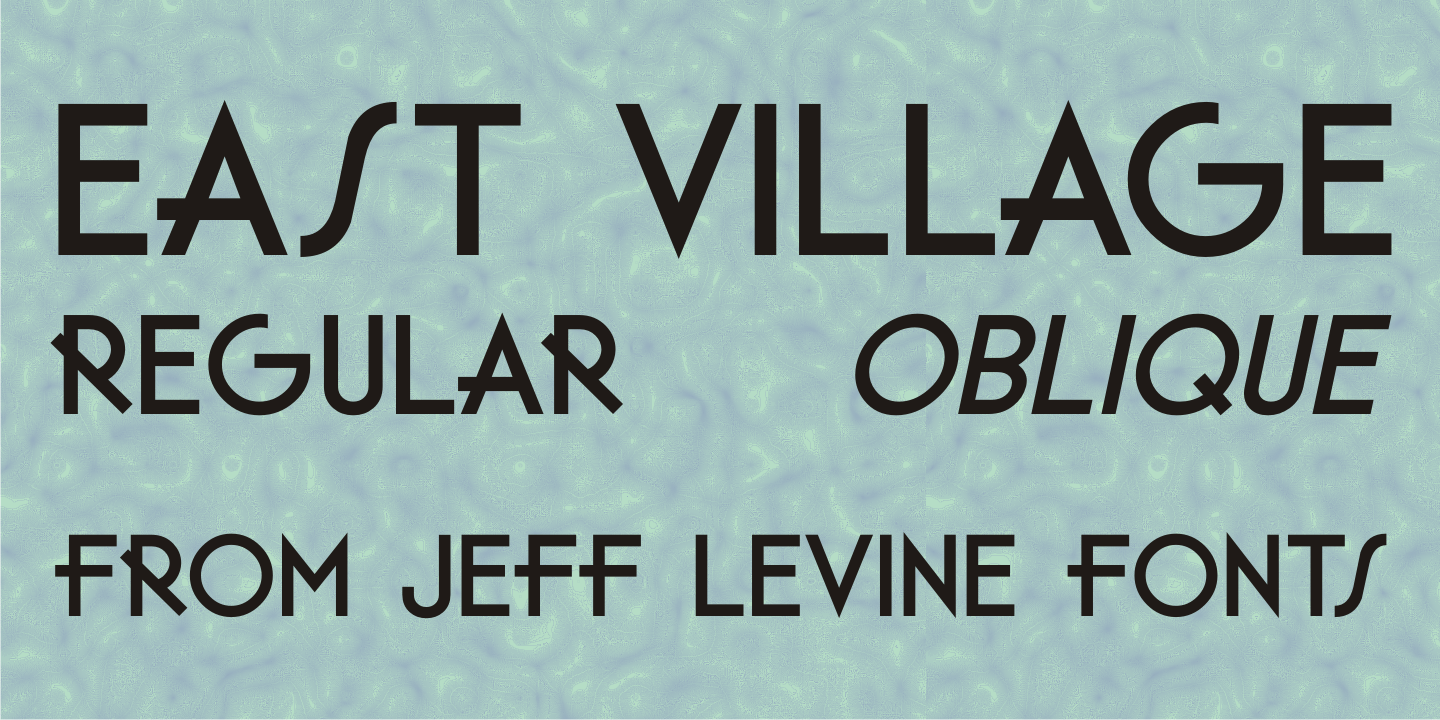
East Village
The Federal Art Project division of the WPA (Works Progress Administration) employed numerous artists, musicians, actors and other creative sorts in a effort to help many survive the Great Depression of the 1930s.
One of the posters created by this project was for a 'Card Party and Barter Benefit” with proceeds going toward the Nassau Art Teachers Benefit Fund - taking place at the Coca-Cola plant in Rockville Centre, New York.
East Village JNL was derived from this poster, and is available in both regular and oblique versions.
East Village includes 213 glyphs.